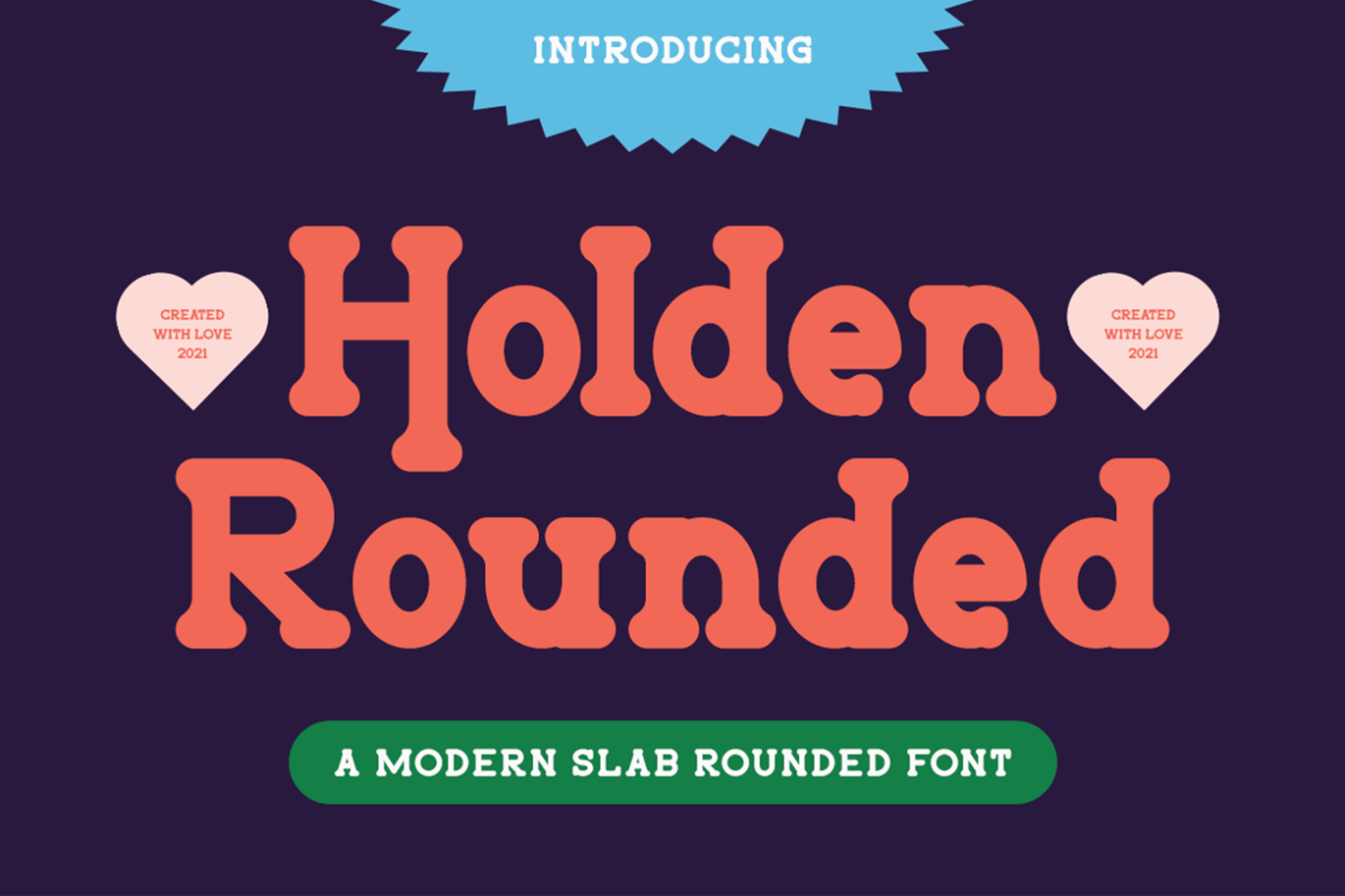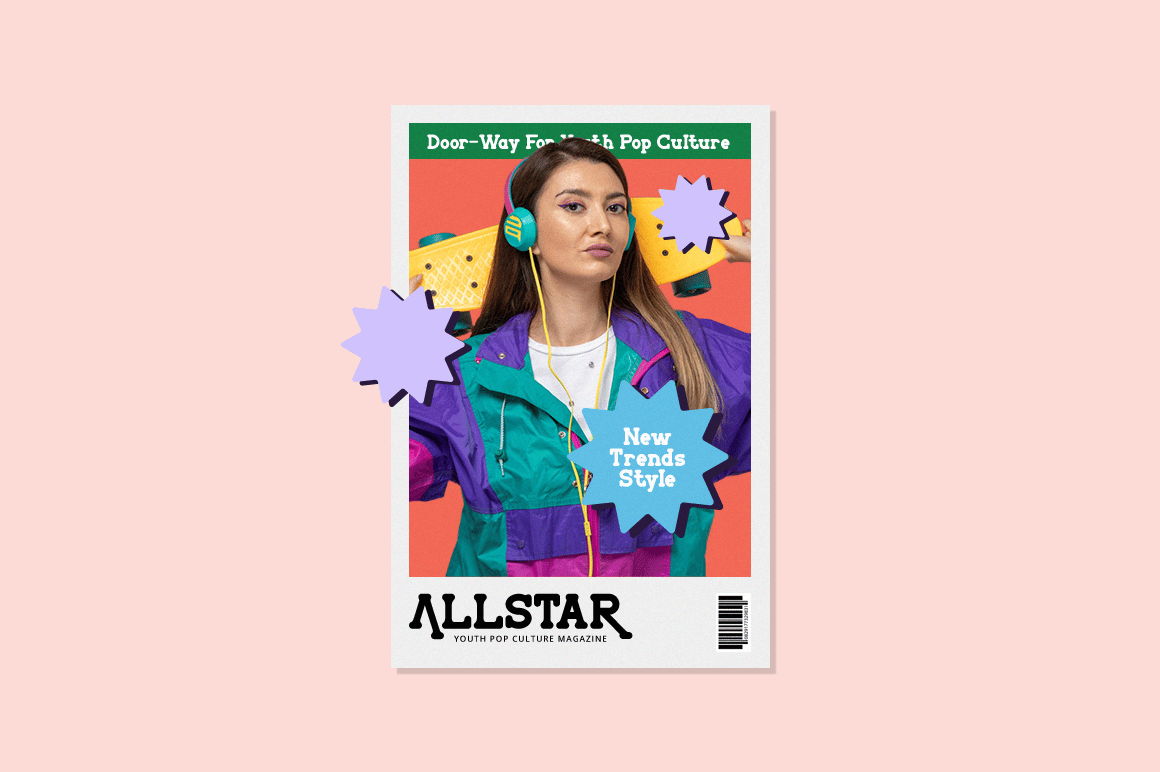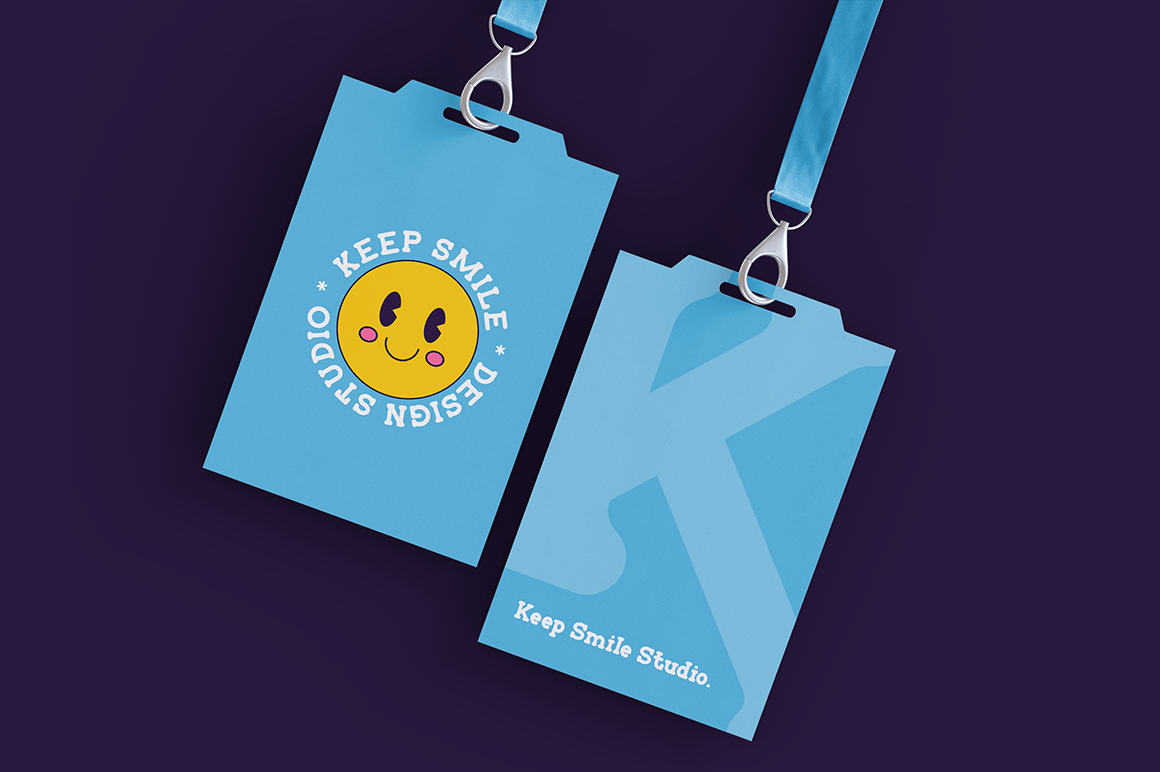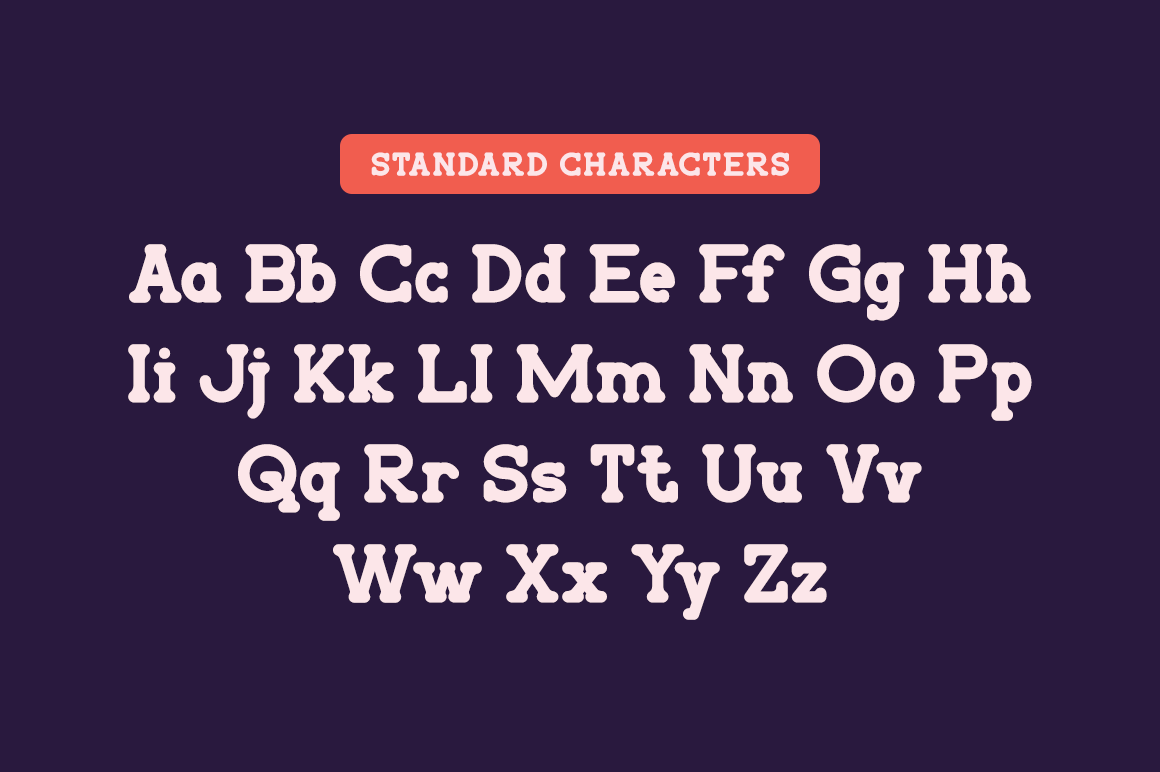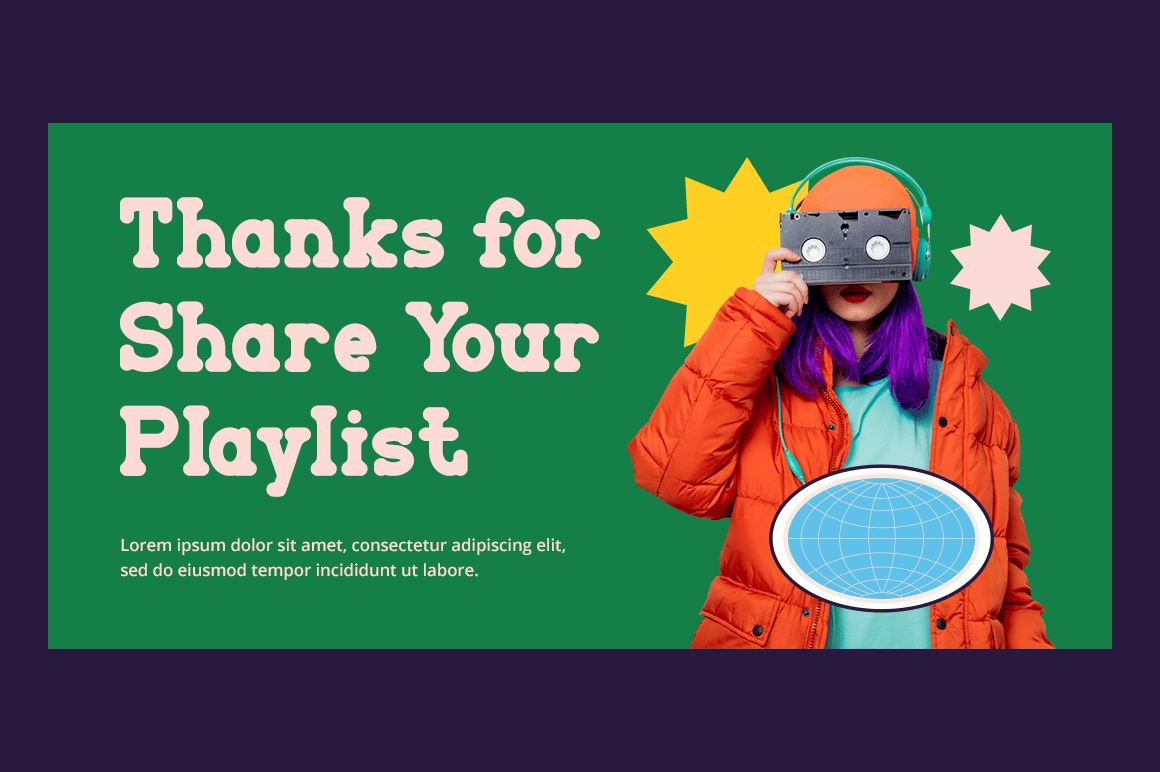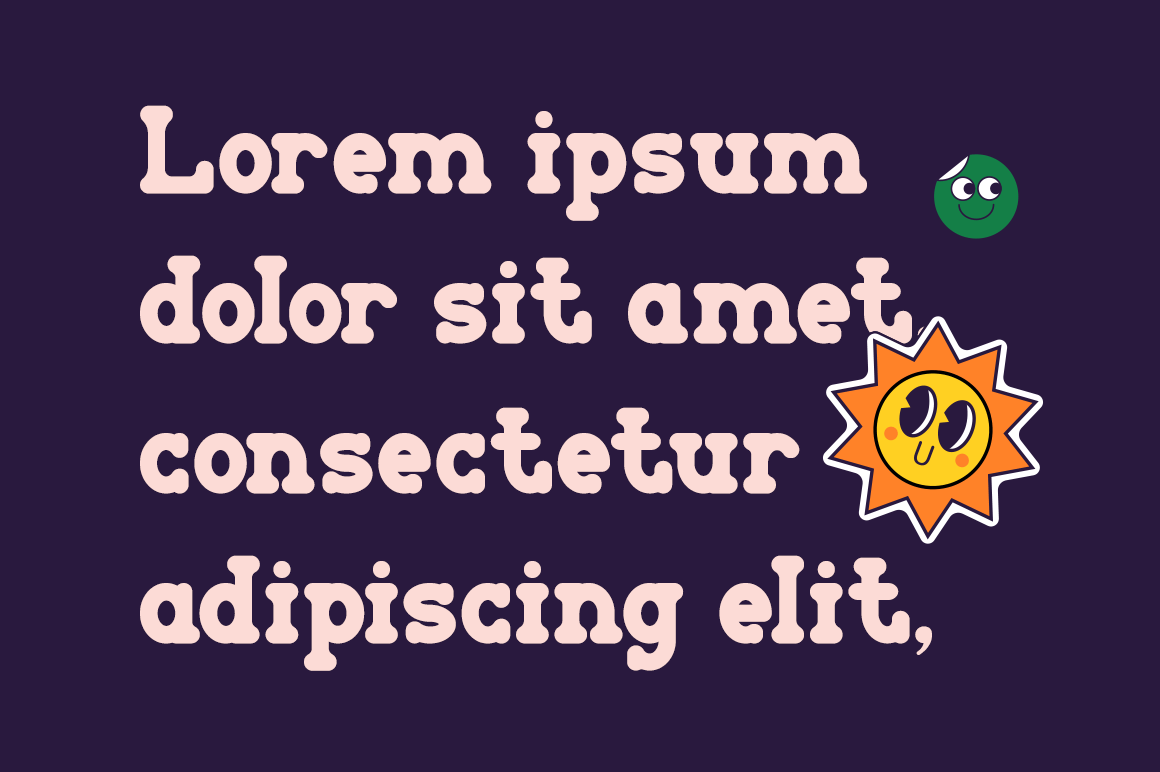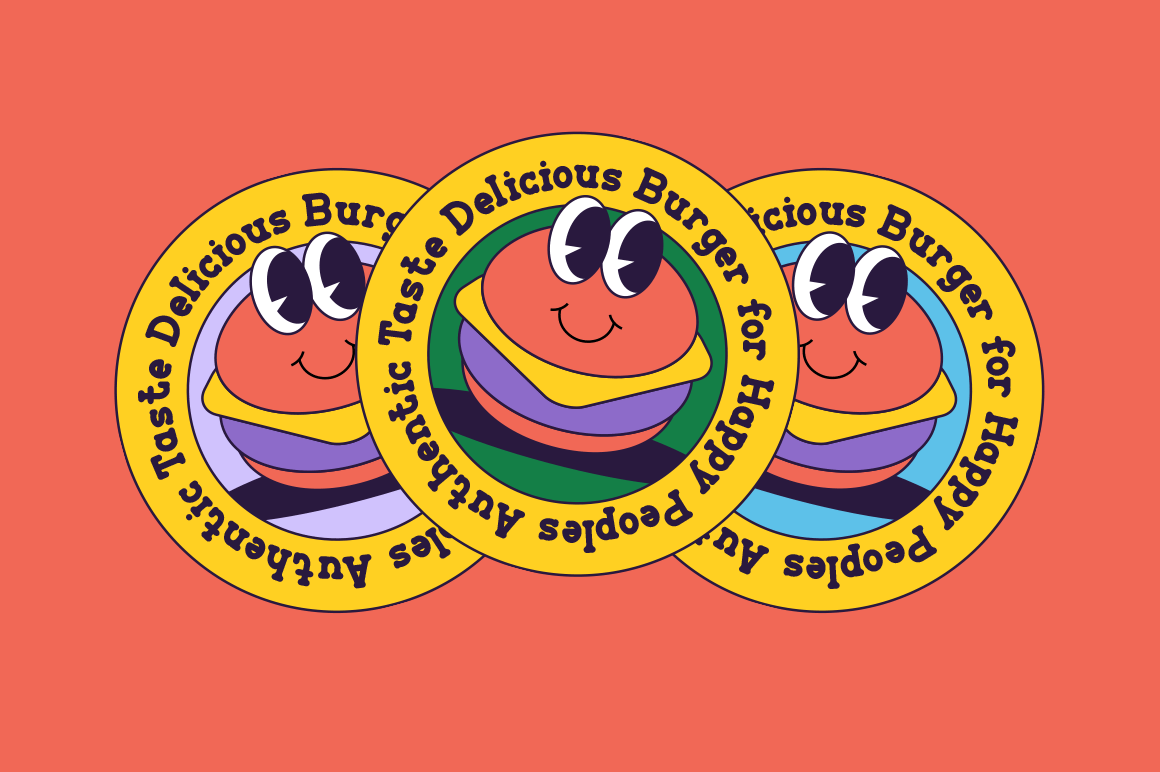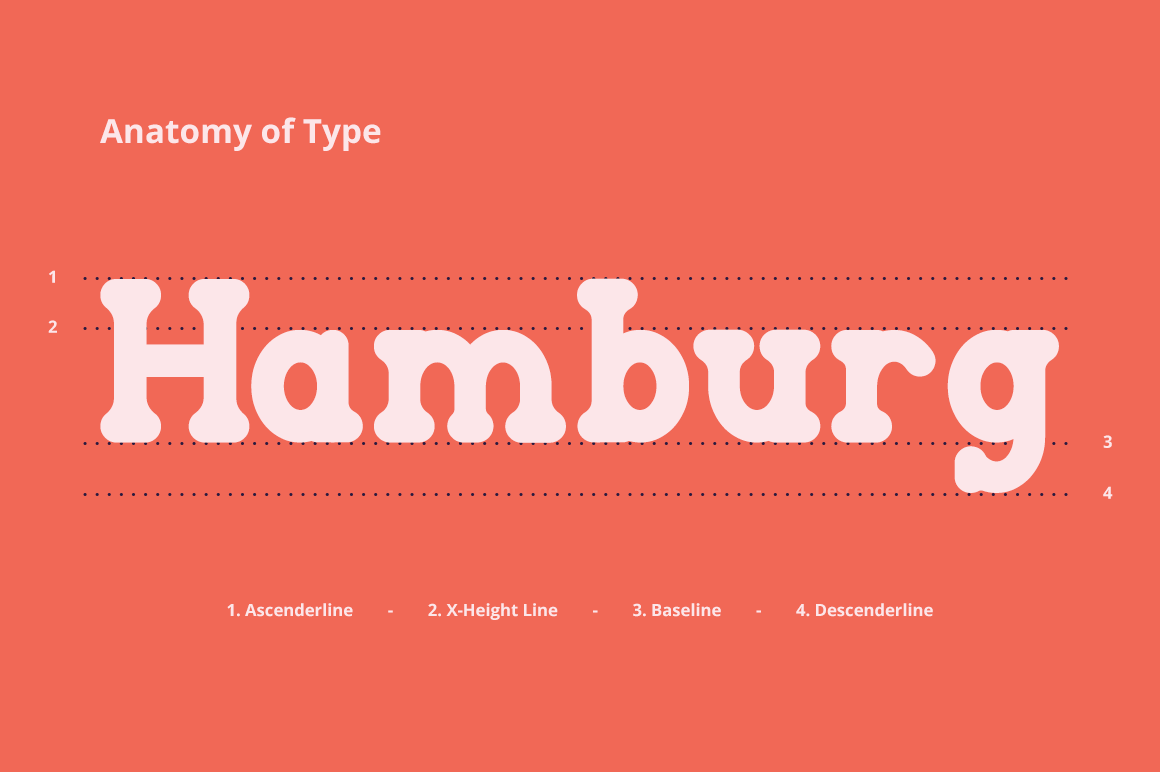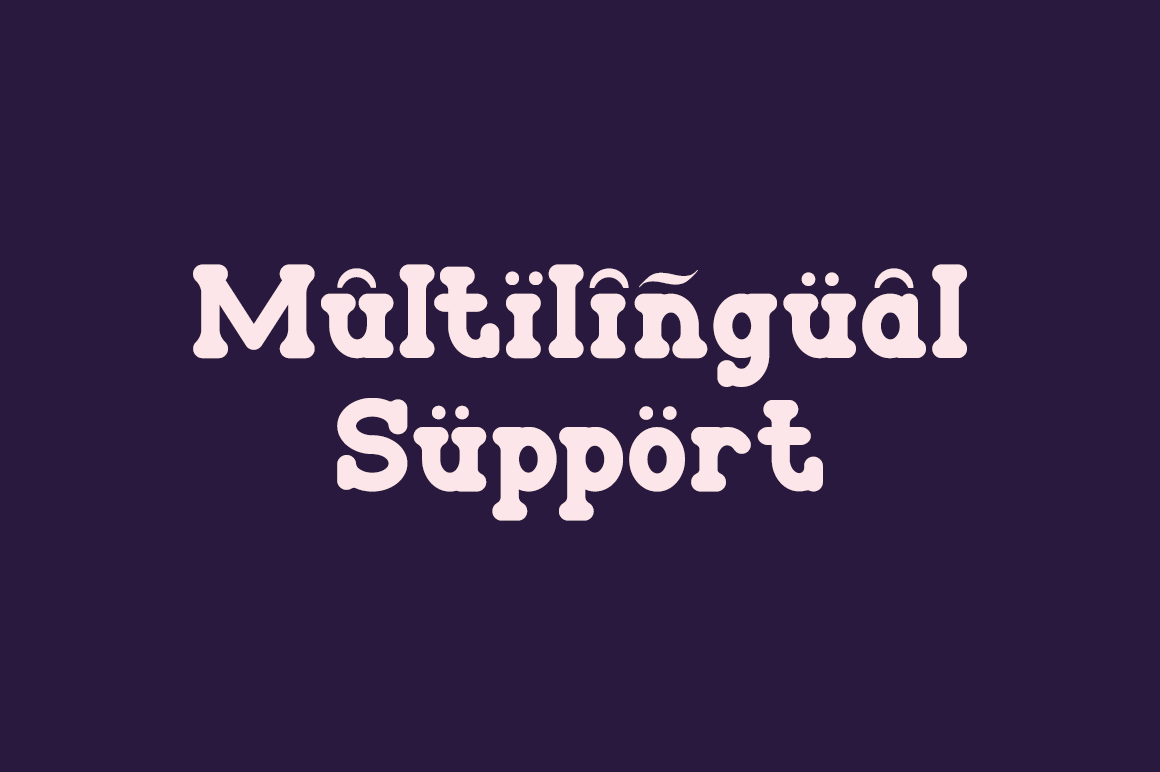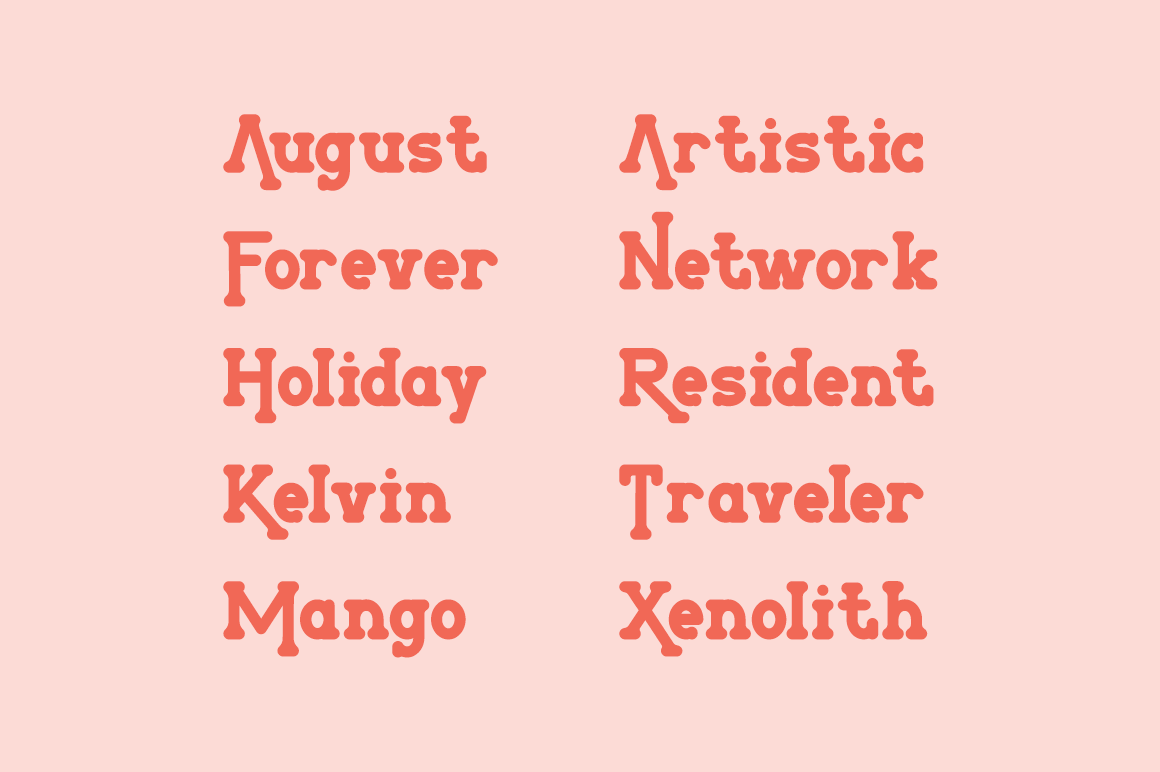
Holden Rounded – Slab Serif Font
Holden Rounded is fresh slab serif font. It can easily be matched to an incredibly large set of projects, so add it to your creative ideas and notice how it makes them stand out!